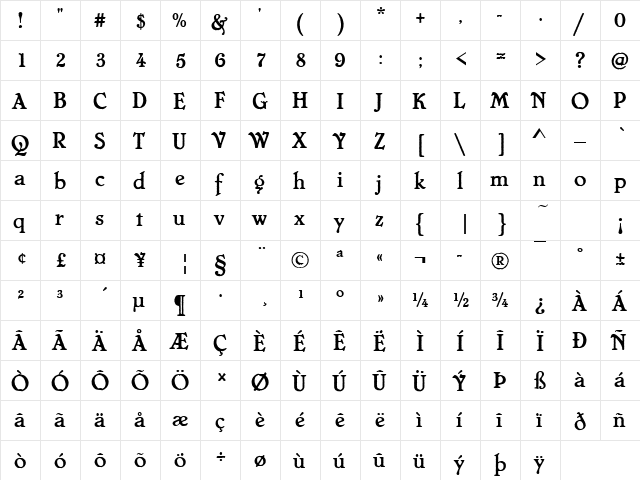
ChesterfieldAntique TextD Regular
Design Context for ChesterfieldAntique TextD Typeface
ChesterfieldAntique TextD has the warm character of retro typography — evoking diners, record sleeves, and the golden age of print advertising.
Font Pairing: Combine ChesterfieldAntique TextD with a simple slab or neutral sans — period-accurate companions reinforce the vintage feel without competing for attention.
Pro Tip: Use ChesterfieldAntique TextD for headlines and pull quotes rather than body copy — its personality is best appreciated in short, focused bursts.